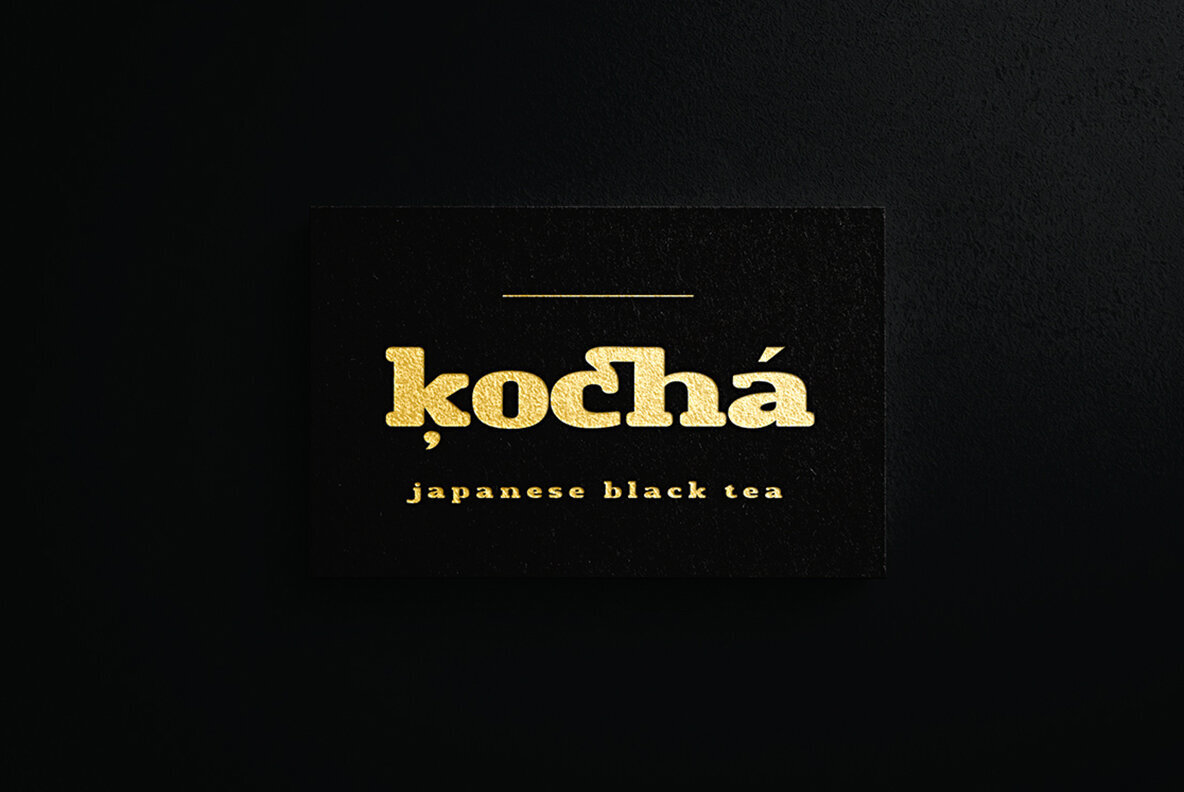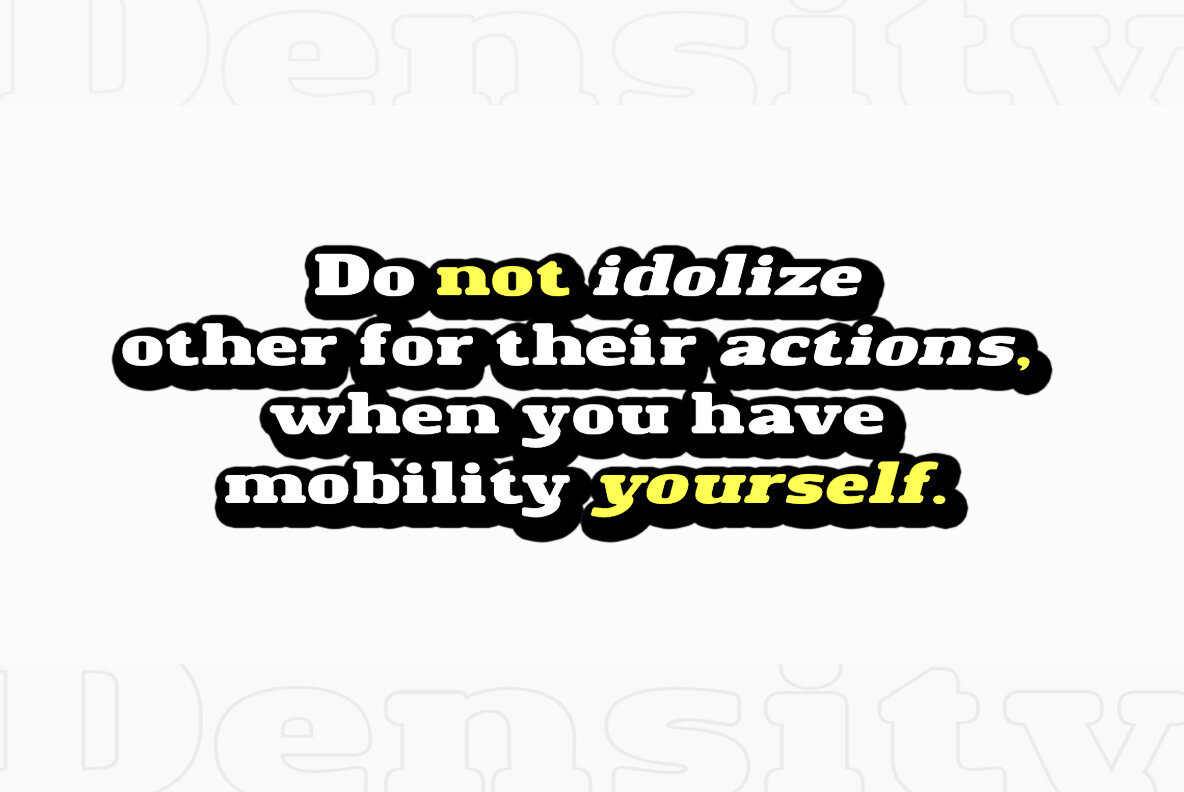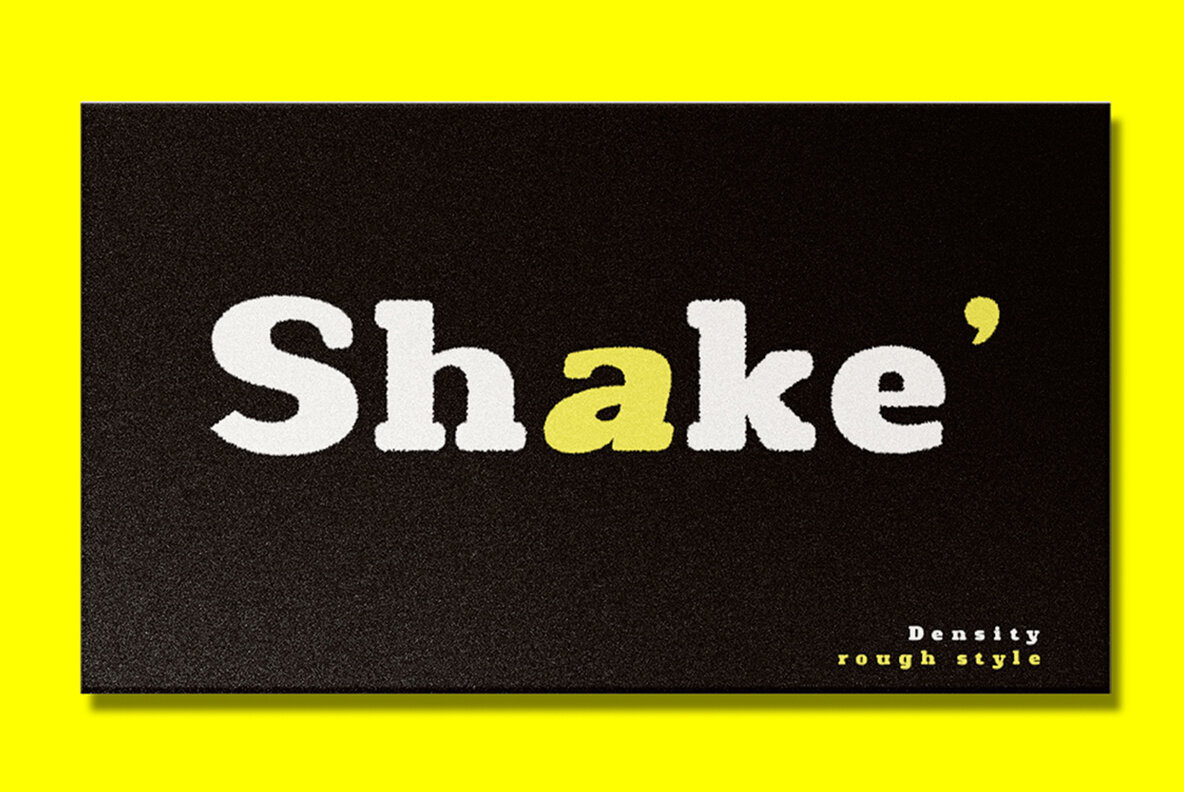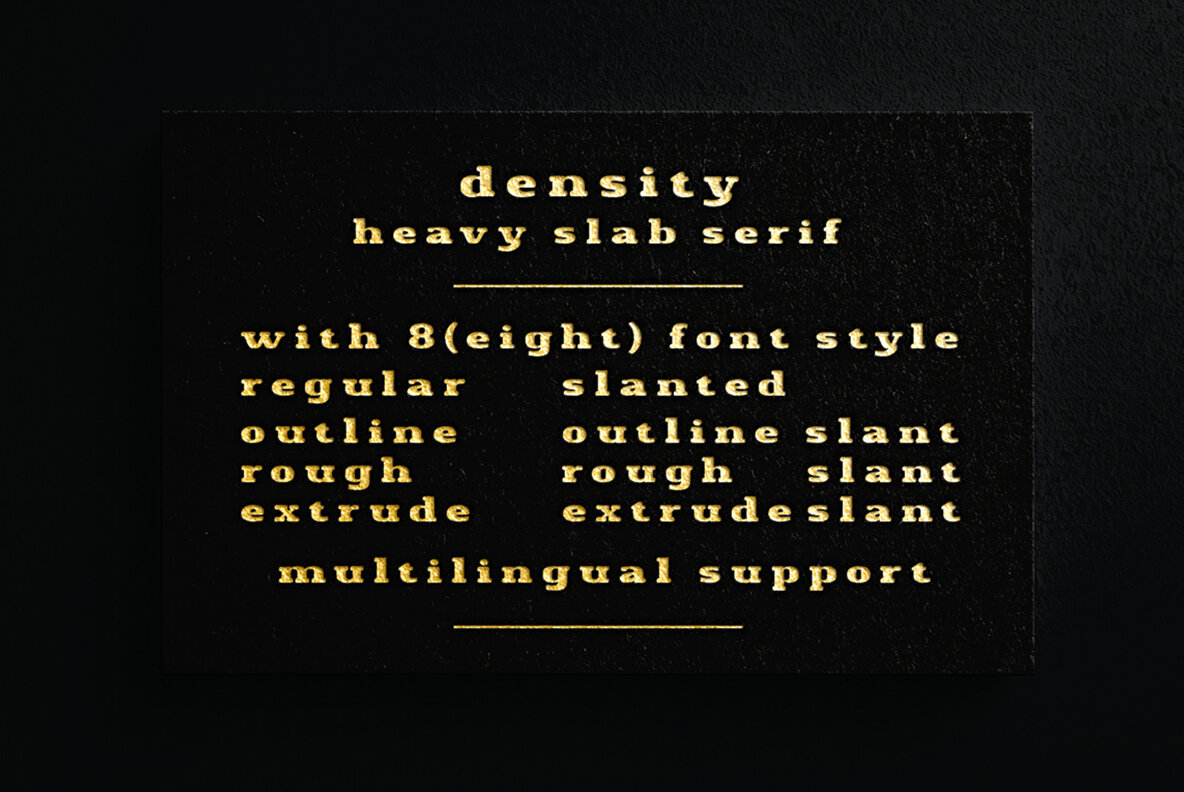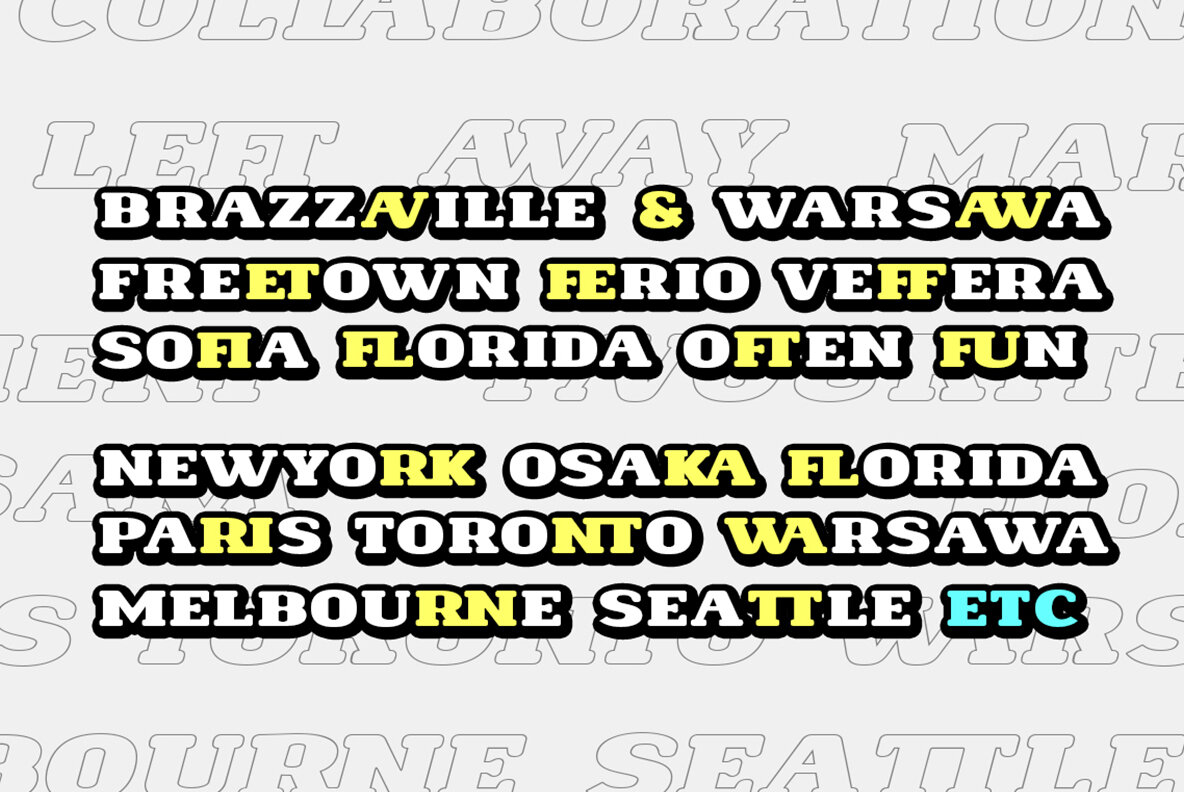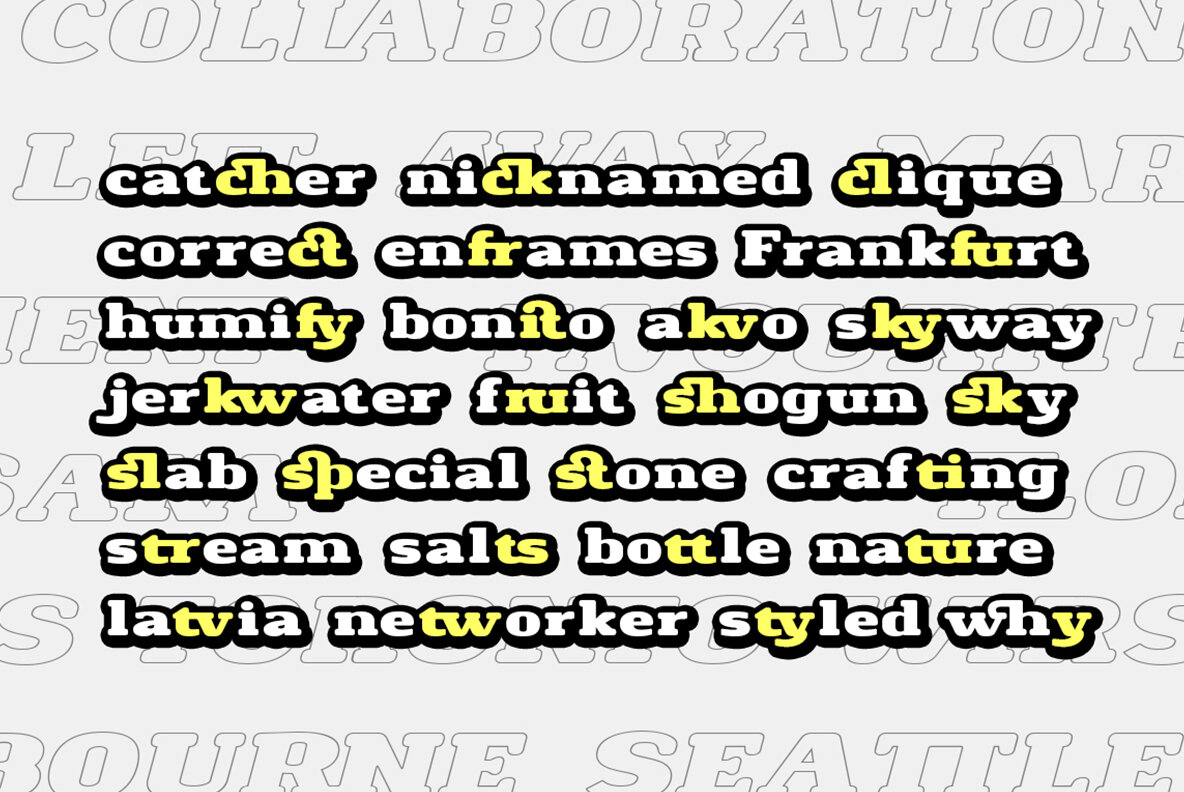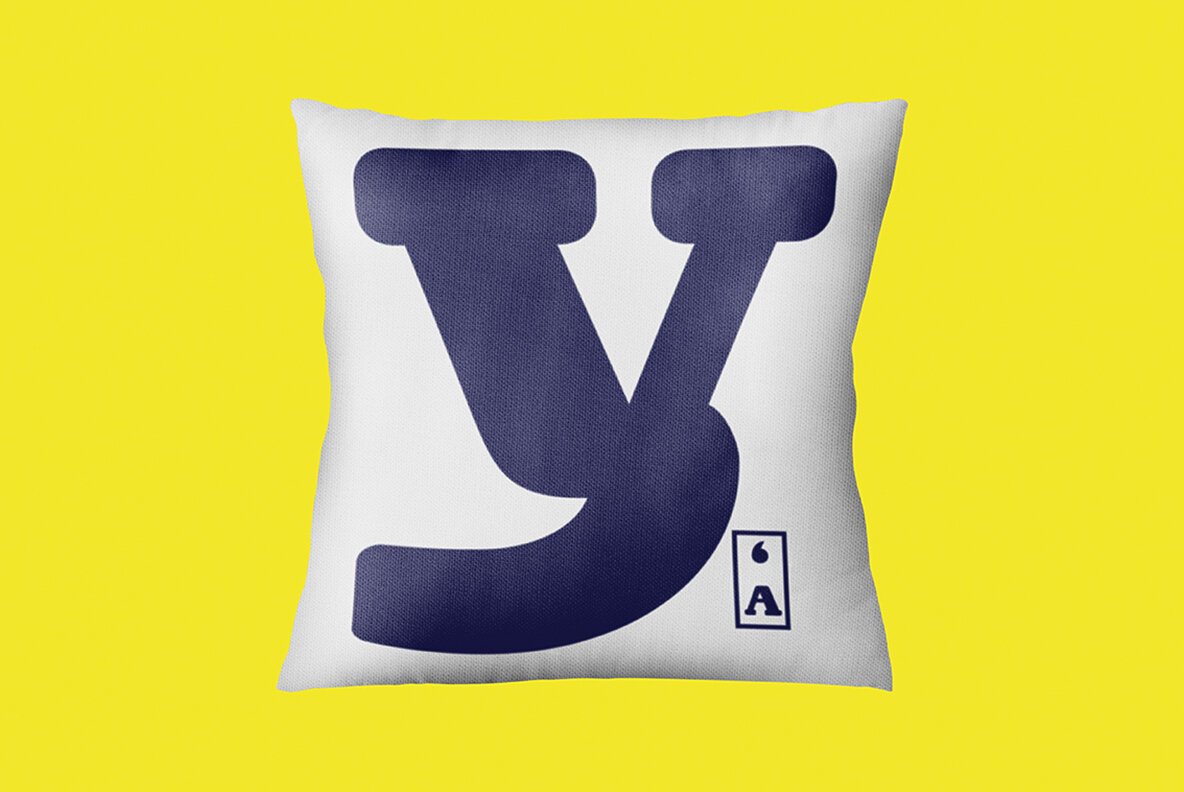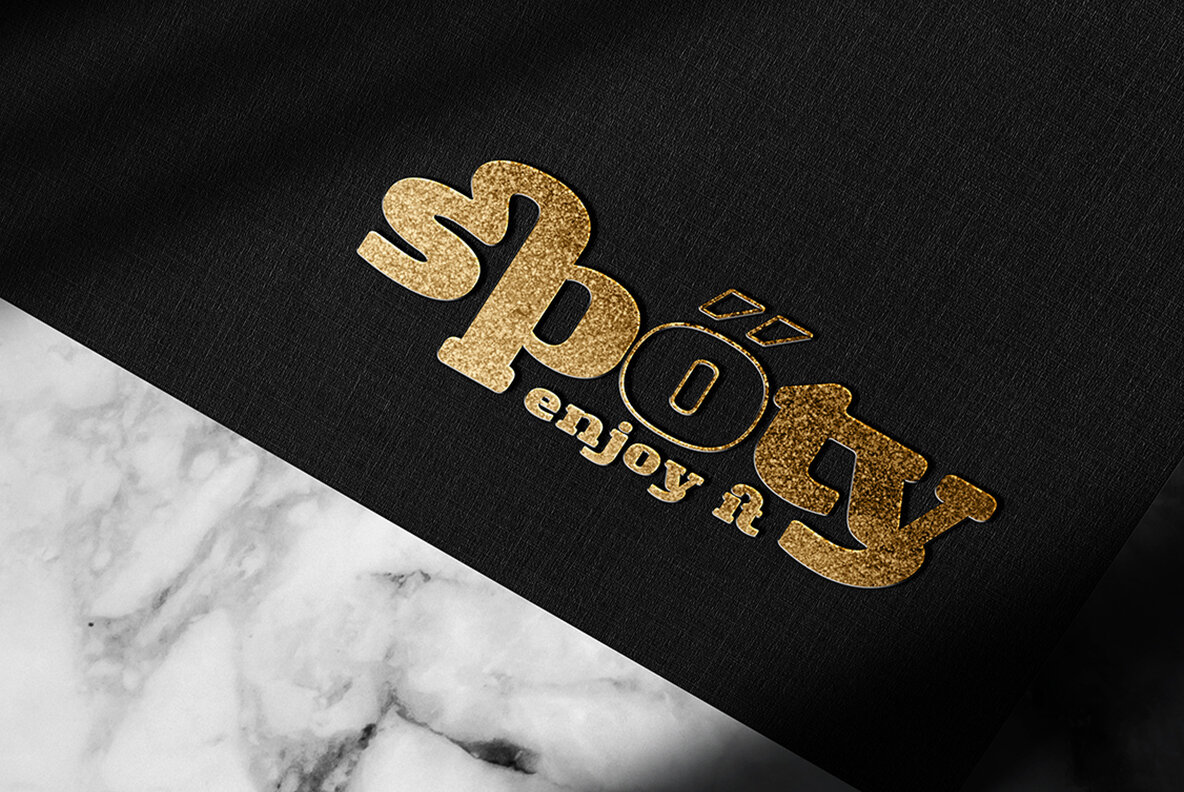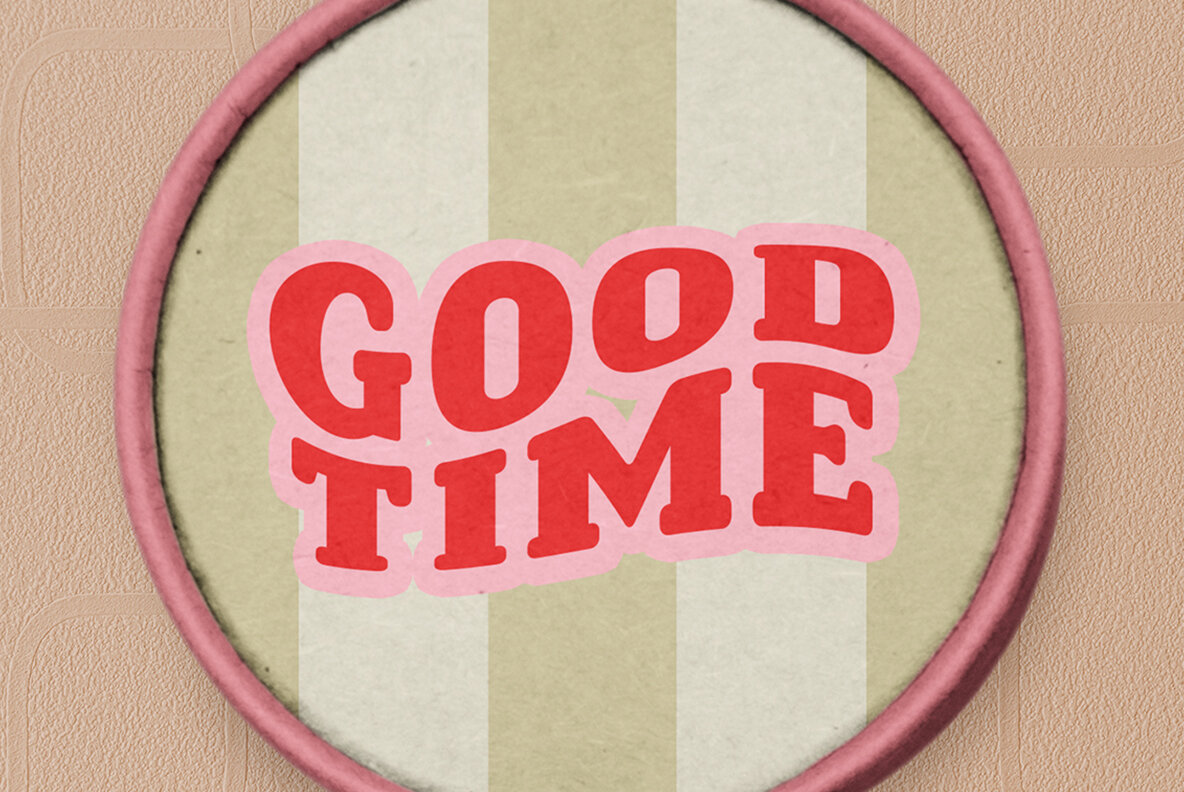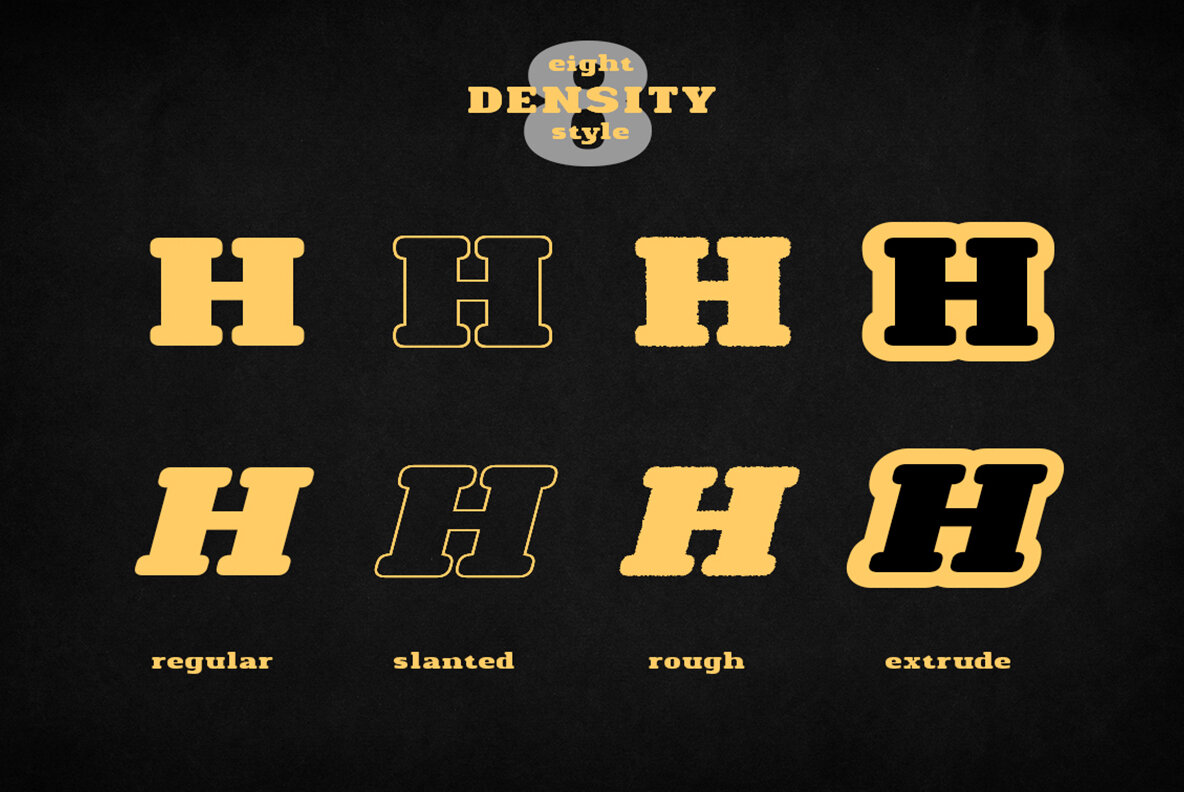
Density Font
Density by Alandya Typefoundry Studio is a versatile heavy slab serif font featuring a smooth design and broad surface. It excels in both horizontal and curved compositions, making it an ideal choice for projects requiring substantial weight and impact. With its bold presence, Density is perfect for a wide range of projects, including branding, logo design, badge creation, and apparel design. Its extensive style options and multilingual support enhance its adaptability for diverse applications.Density: Heavy Slab Serif with Distinct Styles